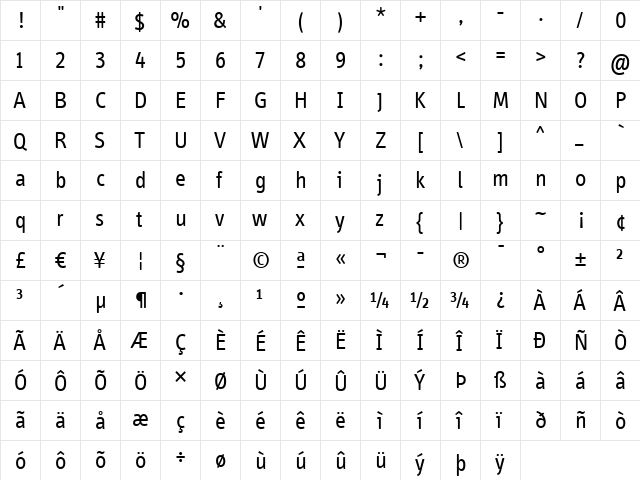
Info Web-Normal Regular
| Designer | Erik Spiekermann, Ole Schaefer |
Design Context for Info Web-Normal Typeface
Info Web-Normal is a composed and adaptable typeface that performs quietly and consistently across a wide range of design contexts.